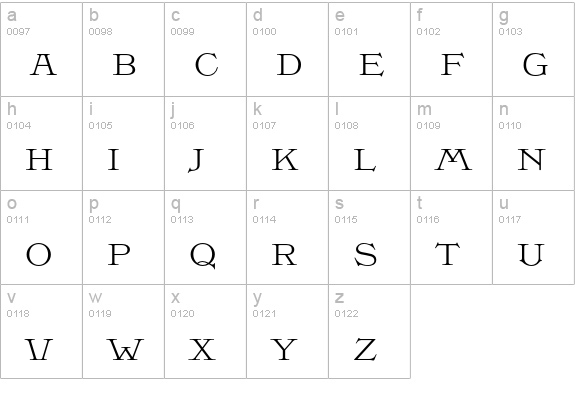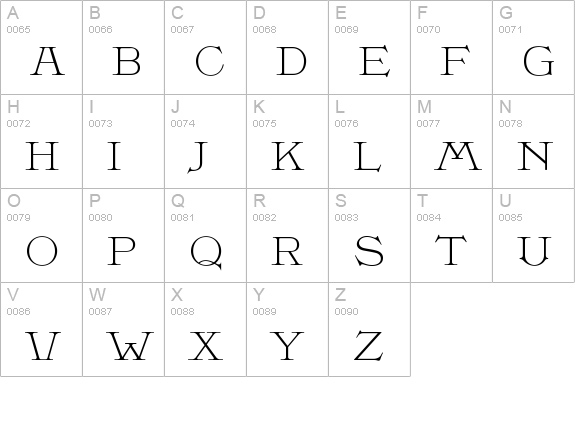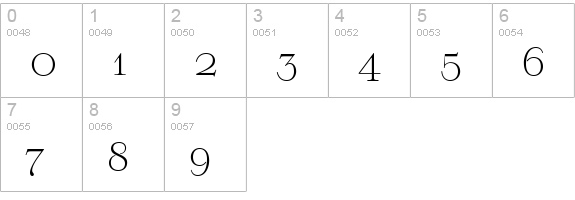
MFC Damask Titling Font Details
The MFC Damask Titling font is a stunning display typeface that exudes elegance and sophistication. With its intricate details and timeless design, this font is perfect for adding a touch of luxury to your projects. The ornate flourishes and graceful curves of MFC Damask Titling make it ideal for headlines, invitations, and branding materials. What sets this font apart is that it is not only visually striking but also completely free to use. You can easily download the MFC Damask Titling font at FontsMarket.com and incorporate it into your creative endeavors without any cost. Whether you're working on a high-end design project or simply want to elevate your typography game, this font is a must-have addition to your collection. Don't miss out on the opportunity to enhance your work with the beauty and sophistication of MFC Damask Titling font, now available for free download at FontsMarket.com.